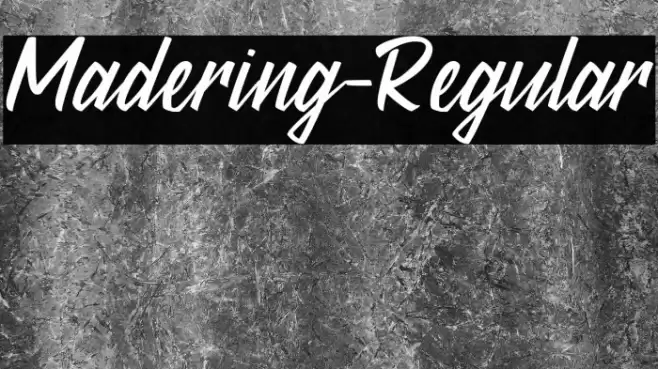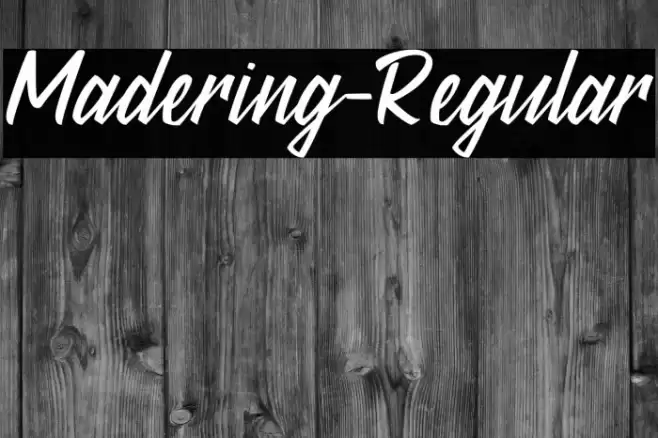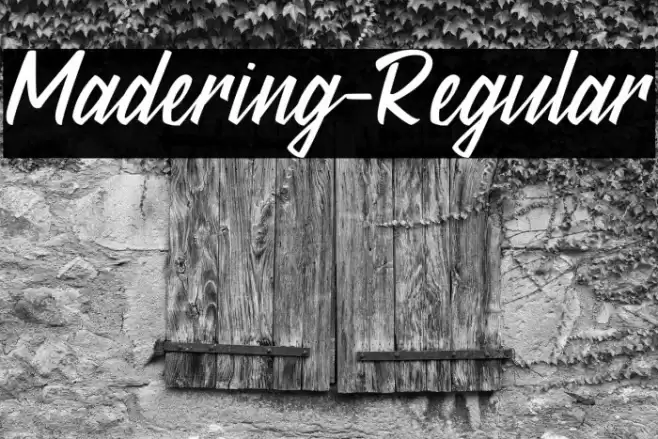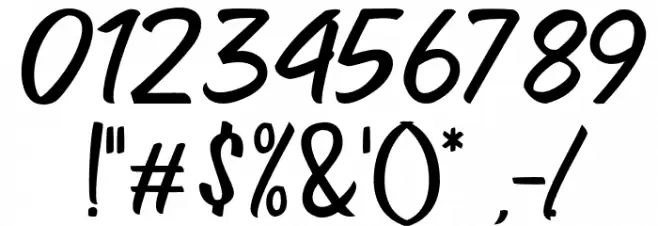
Madering-Regular Font
Madering-Regular Description
This font features a dynamic and fluid script style, characterized by its smooth, flowing lines and elegant curves. The uppercase letters exhibit a graceful slant, adding a sense of movement and sophistication. The lowercase letters maintain a consistent rhythm, with some characters featuring distinctive loops and swashes that enhance its decorative appeal. The numerals are bold and clear, ensuring readability while maintaining the overall aesthetic. Special characters are well-integrated, complementing the font's cohesive design. This font's lively and expressive nature makes it suitable for creative and artistic projects.
A dynamic and fluid script font with elegant curves and a lively style from Uncategorized fonts.
- Proposed Projects: Ideal for wedding invitations, greeting cards, branding, and artistic posters.
- Use Case: Logos, Headlines, Invitations